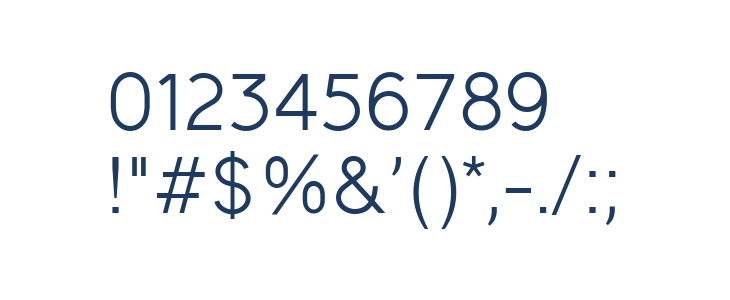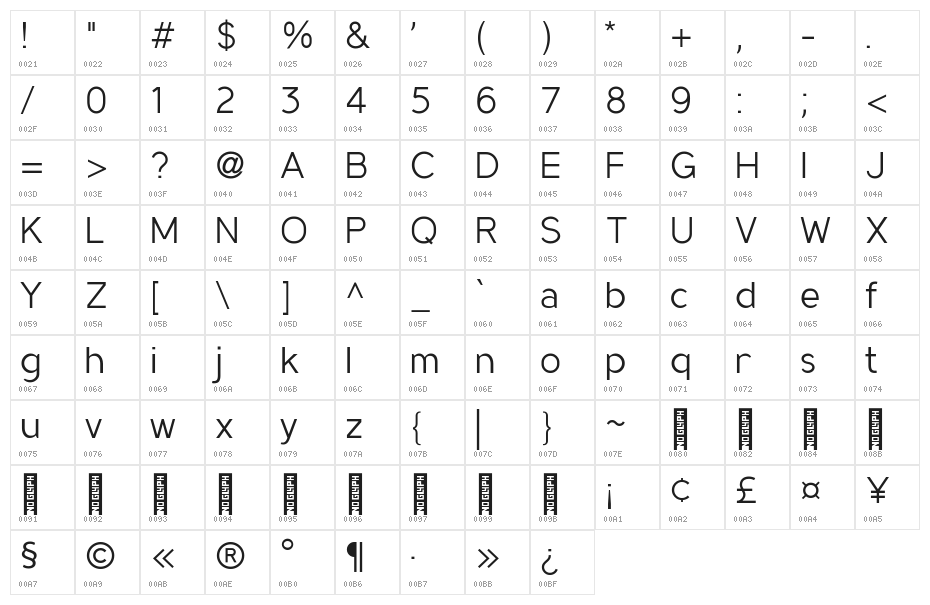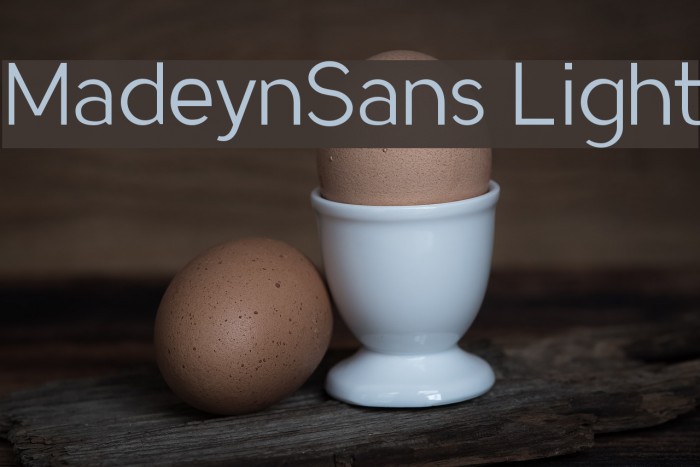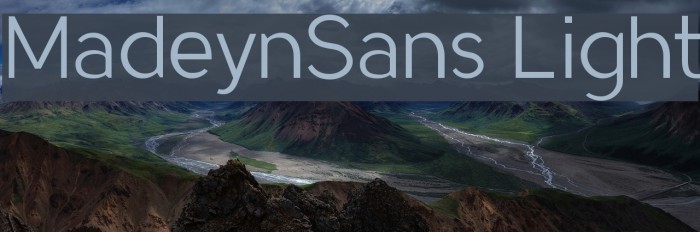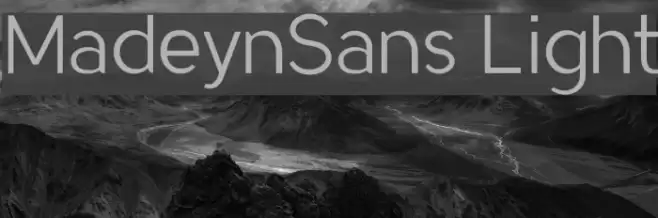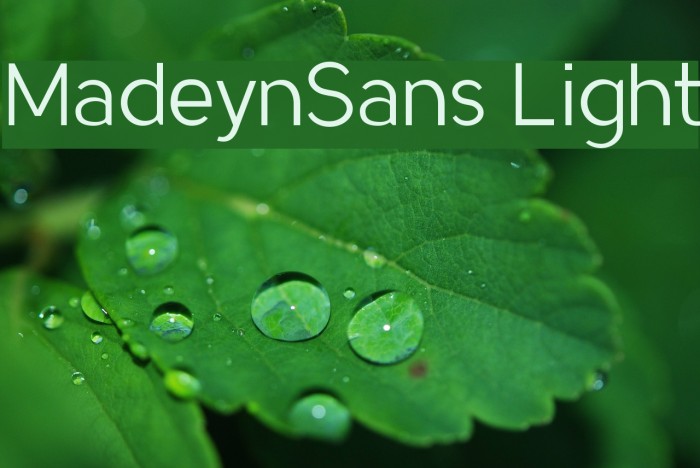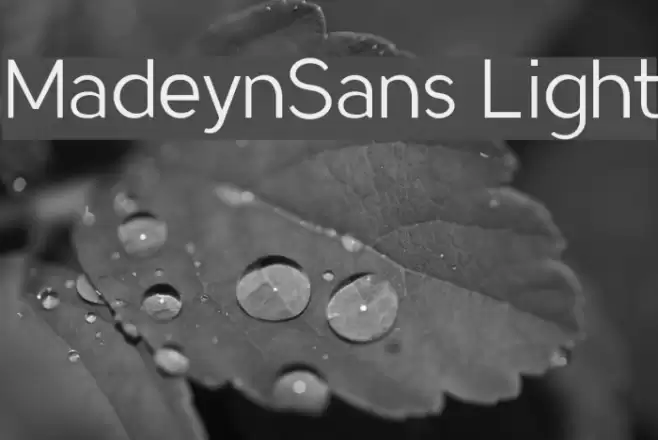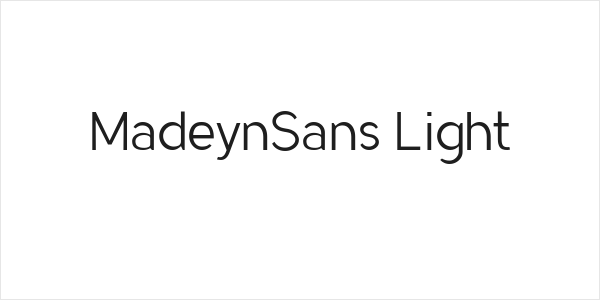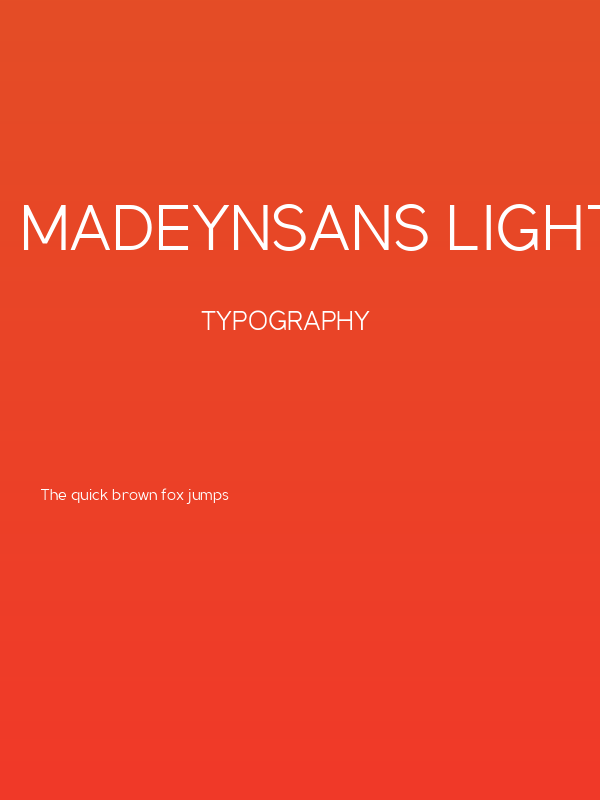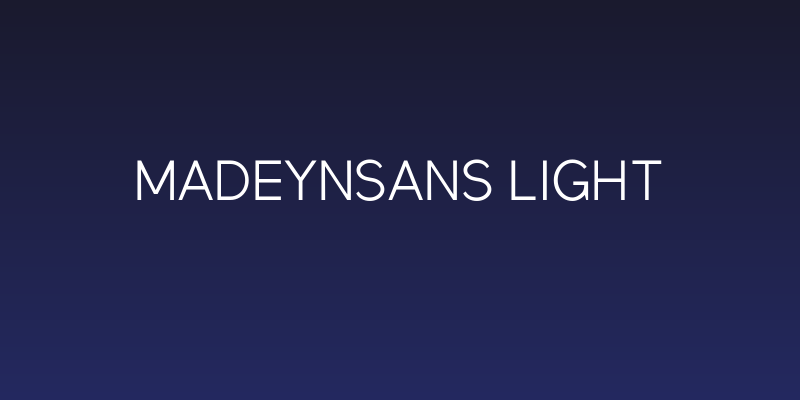
MadeynSans Light Font
MadeynSans Light Description
This font features a clean and modern sans-serif design with a light weight, making it ideal for contemporary applications. The characters are well-proportioned with a consistent stroke width, offering a sleek and professional appearance. Its simplicity and clarity make it highly readable, suitable for both digital and print media. The font includes a full set of uppercase and lowercase letters, numerals, and a variety of special characters, ensuring versatility in usage. The character spacing is normal, providing a balanced and harmonious text flow.
| Proposed Projects | Ideal for branding, web design, corporate materials, and editorial content. |